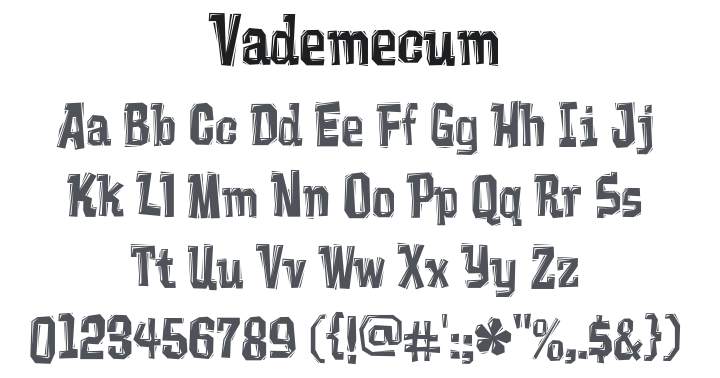
Vademecum Font
About Vademecum
Vademecum is a bold, blocky display typeface with a linocut-like texture — thick, chunky letterforms with rough, irregular edges that look hand-carved or gouged, as if cut from a block with a blunt tool. The raw, uneven surfaces give every word a bravado-filled, adventurous energy. Perfect for underground posters, artisan branding, editorial headlines, craft beer labels, and any design needing bold, hand-hewn, woodblock-print character.